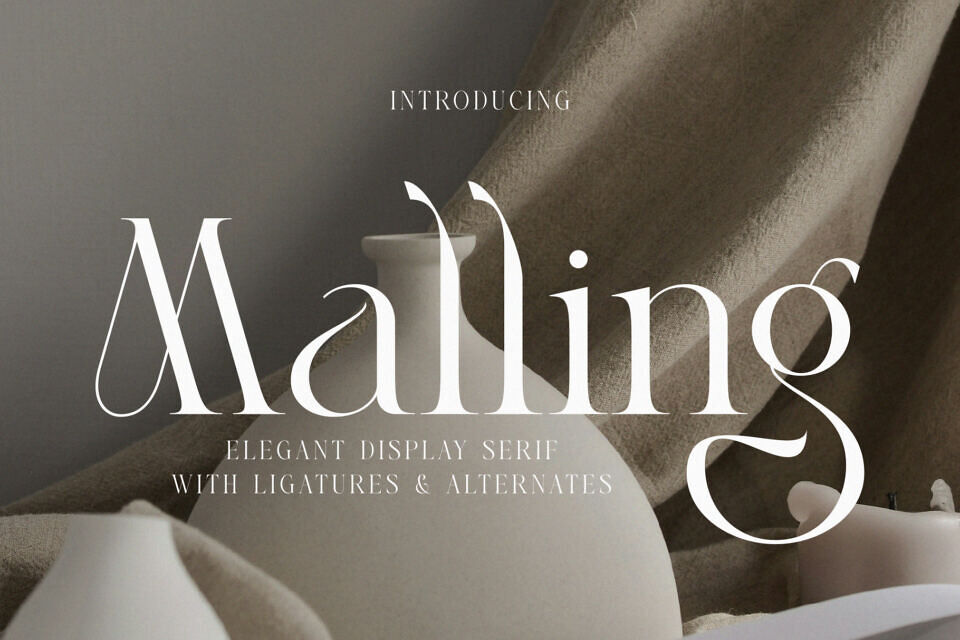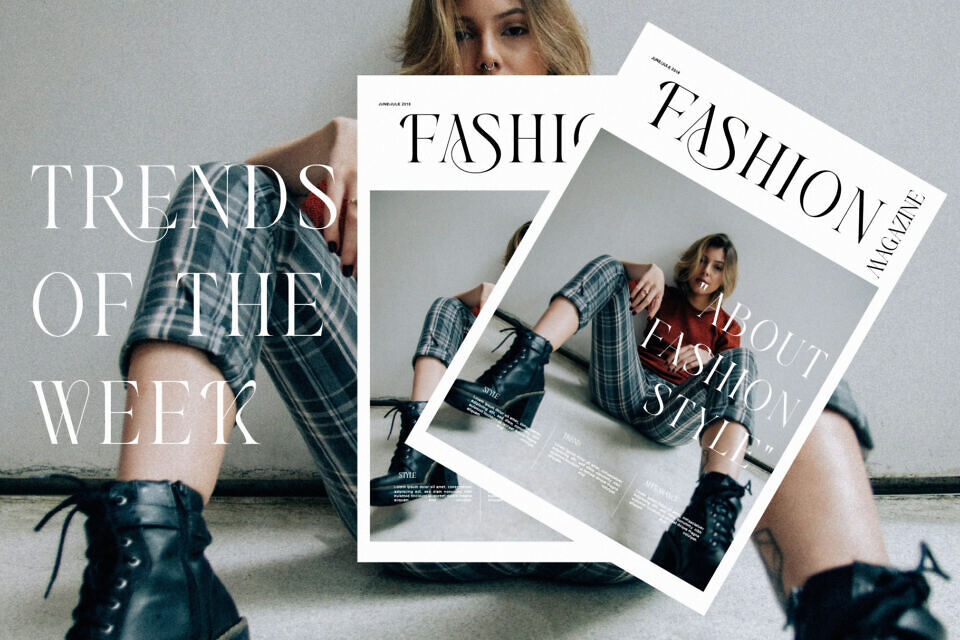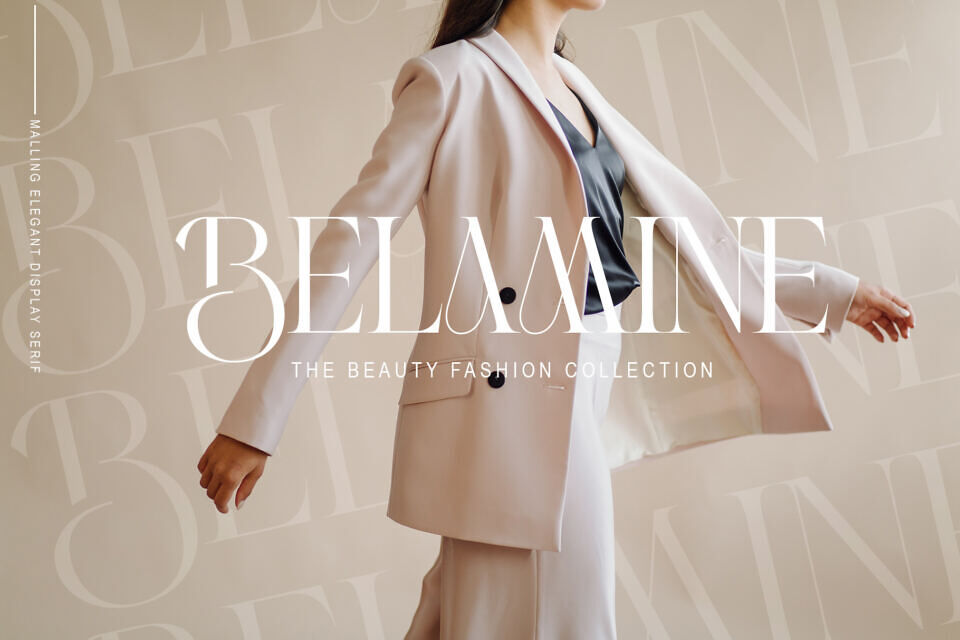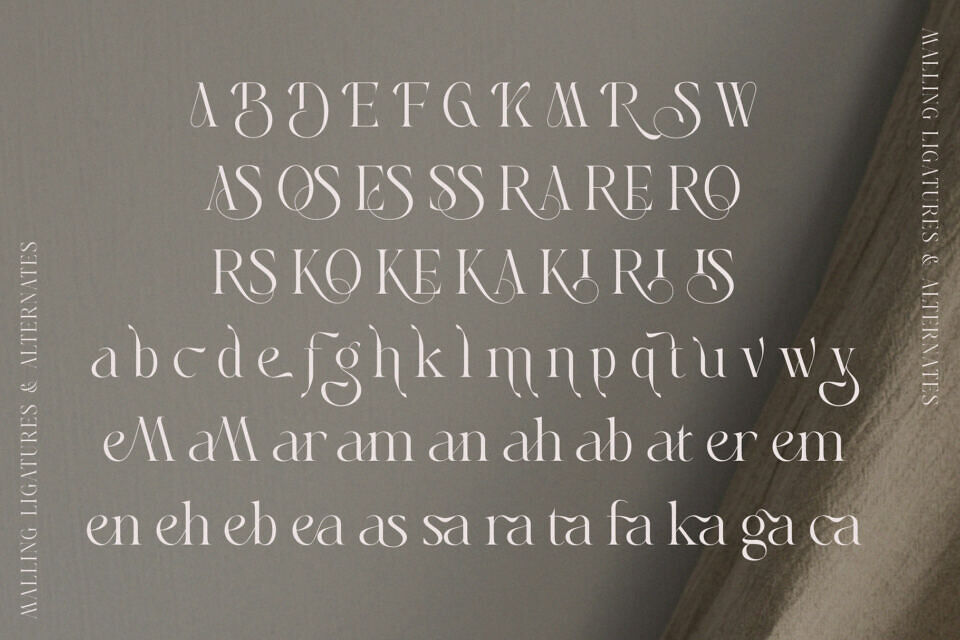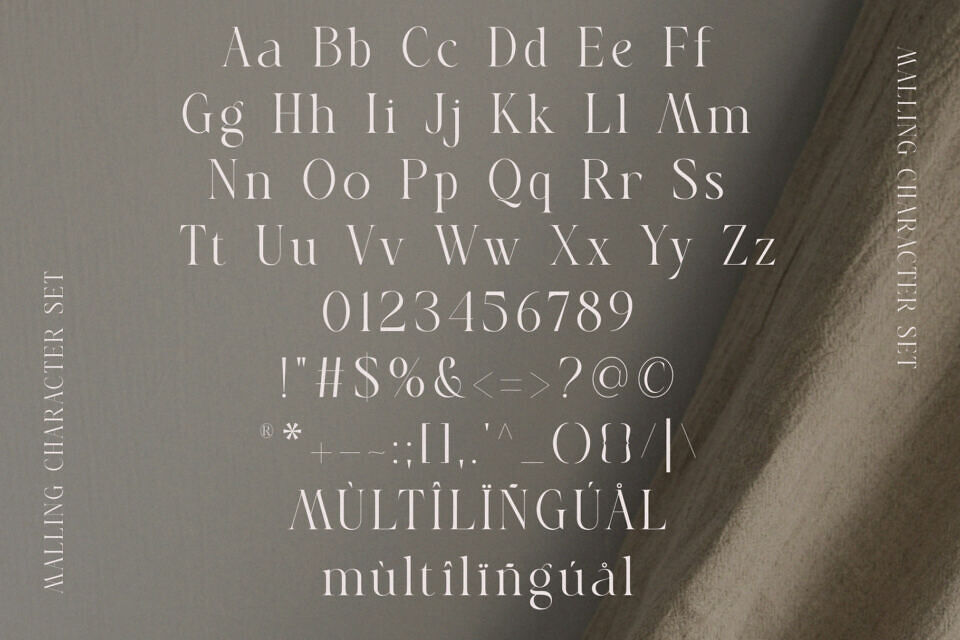
Malling Font
Introducing Malling, an elegant and modern serif display. With its modern and minimalist look, Malling brings a luxurious and clean style to your projects such as websites, modern logos, branding identities, social media quotes, wedding stationery, and more!
Malling features unique and classy capital letters A to Z and is equipped with ligatures and alternate letters, making it a beautiful font that can be adapted to any large project you want.